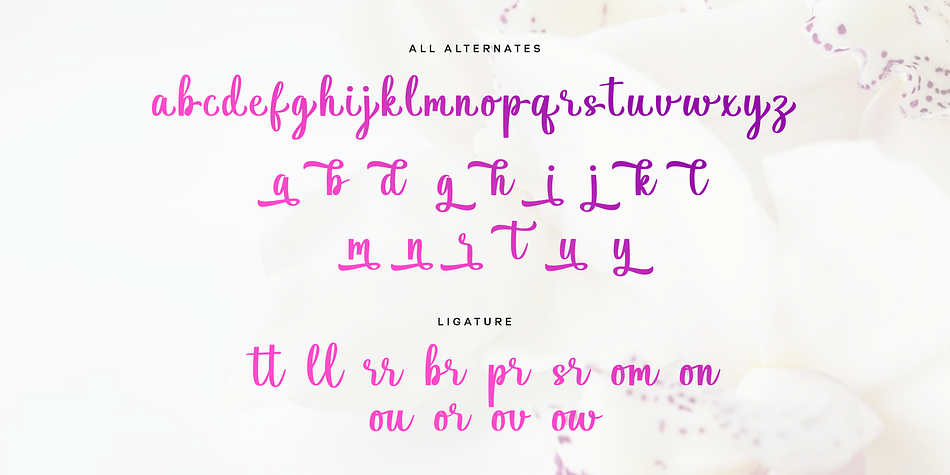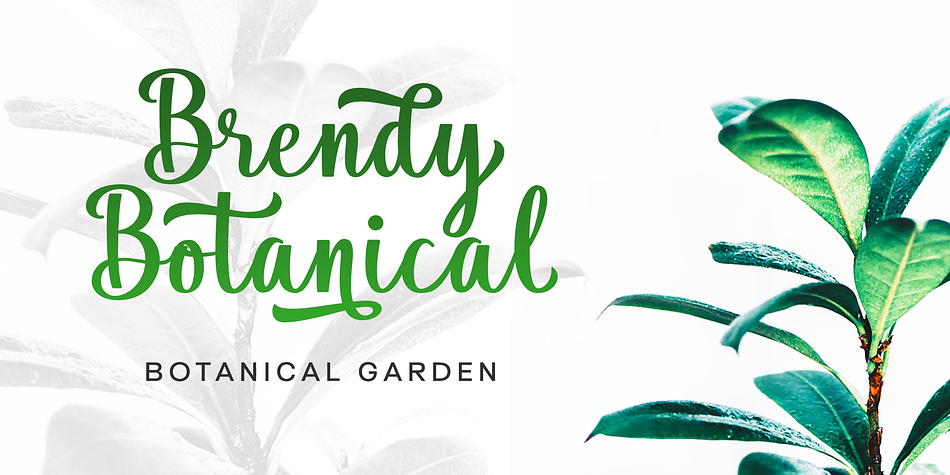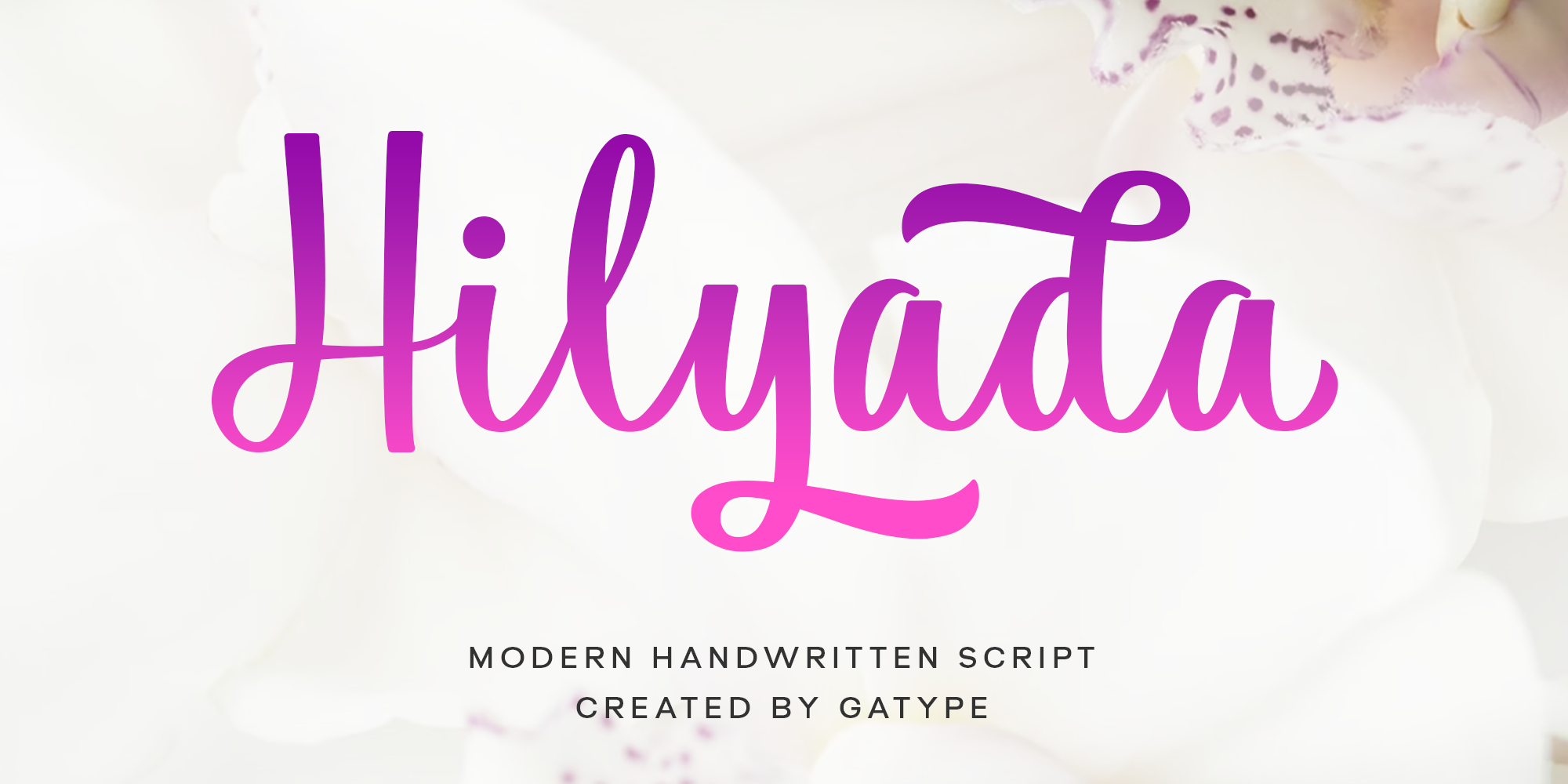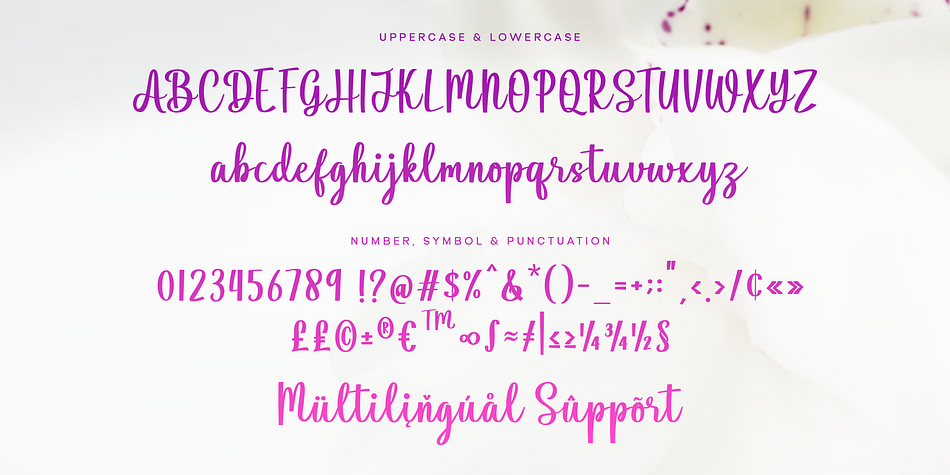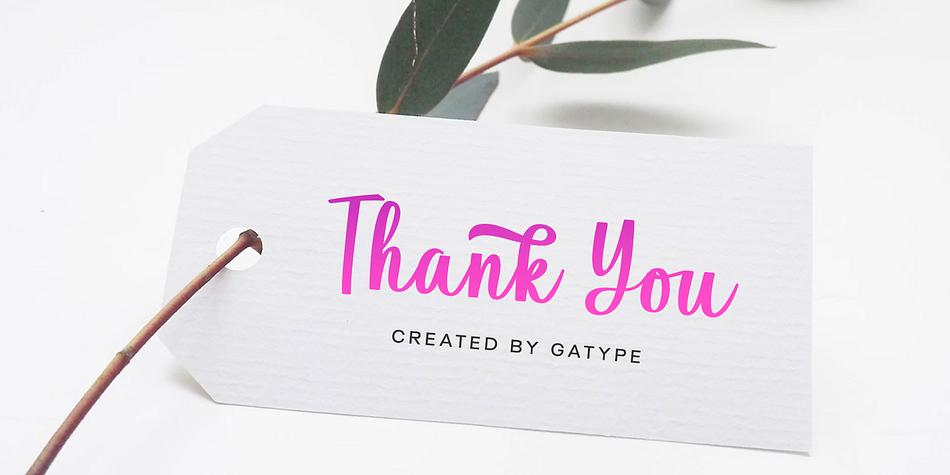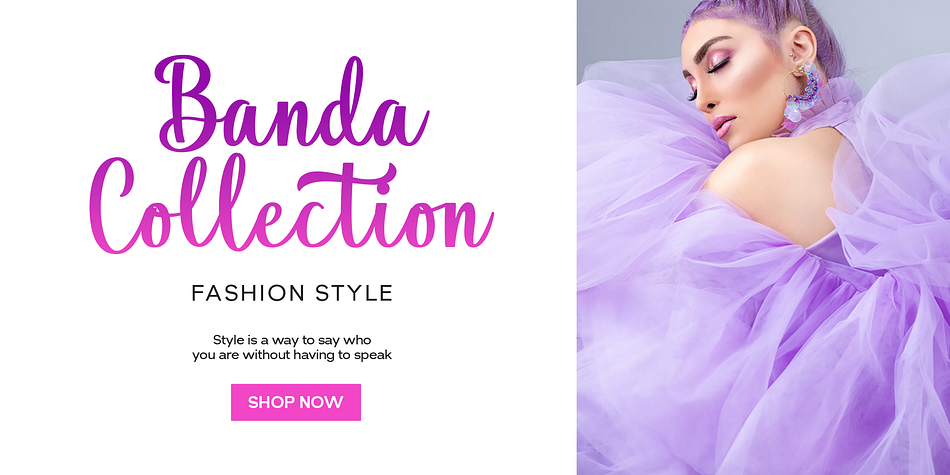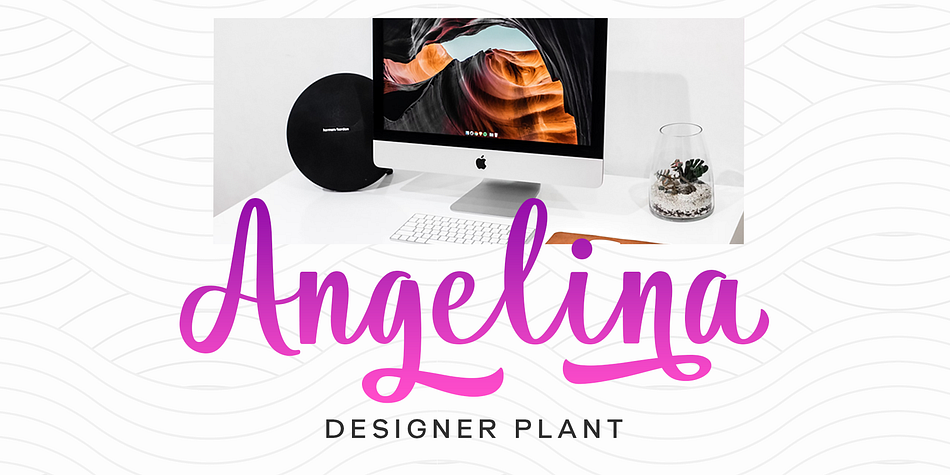
Hilyada
Hilyada is a brush script font family published by Gatype.
Hilyada is an elegant and graceful script font with a smooth, handwritten style. It features flowing letterforms that create a feminine, romantic, and artistic impression. Hilyada is suitable for various designs such as wedding invitations, branding, posters, and other creative works that require a classic and personal touch. With its dynamic curving lines, Hilyada offers a luxurious and warm feel to the text, making it ideal for creating an enchanting impression.